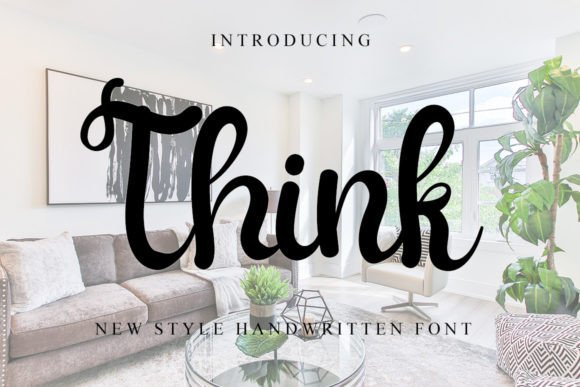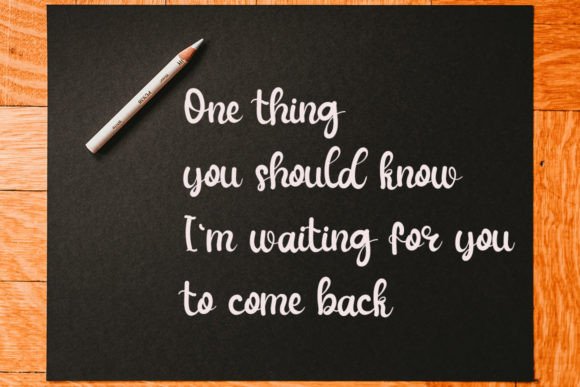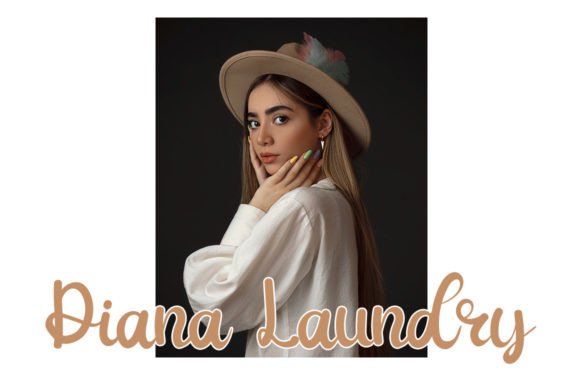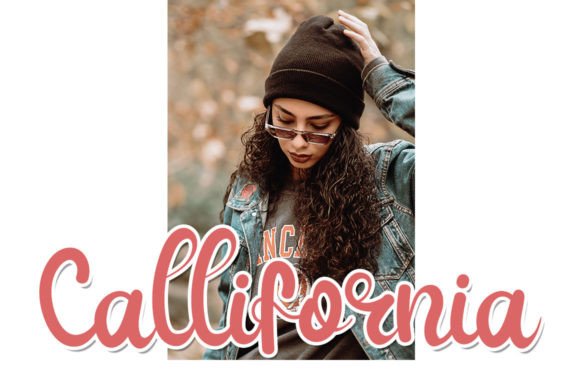
Think Font
About Think Font
Think is a beautiful and sweet handwritten font that brings a fresh and elegant touch to every project. With its clean curves and friendly appearance, it strikes the perfect balance between formal elegance and casual charm. Whether you’re working on a modern brand identity, a romantic invitation, or a minimalist design, Think will easily adapt to your needs.
Its carefully crafted characters have a soft and approachable tone, making it perfect for conveying warmth, sincerity, and creativity. The font flows smoothly, delivering both visual harmony and excellent readability.
Where to Use Think Font
One of the strongest features of Think is its incredible versatility. It fits seamlessly into both professional and personal projects. Here are some ideas where Think really shines:
• Wedding Invitations – Soft, elegant, and timeless
• Thank You Cards – Adds a warm, handwritten tone
• Branding & Logos – Perfect for brands with a clean, modern, or feminine personality
• Social Media Posts – Engaging and friendly style for quotes, promos, and captions
• Stationery & Notebooks – Makes every page feel personal and beautiful
• T-shirt and Merchandise Designs – Adds uniqueness and emotional appeal
• Packaging – From beauty products to handmade items, Think gives your packaging a professional, yet handmade feel
Whether you want to make a lasting impression or simply add a lovely human touch, this font delivers.
Think Font is more than just a pretty typeface—it’s also functional and easy to use:
• Uppercase and lowercase letters
• Numbers and punctuation
• PUA encoded – access all swashes and special glyphs easily
• Multilingual support
• Well-kerned and beautifully spaced for clean layout results
With these features, you’ll have everything you need to create stunning designs quickly and effectively.
Why Choose Think?
What sets Think apart is its ability to work across styles. It’s not overly decorative, yet it carries just enough personality to make a statement. Its clean and elegant flow gives it the flexibility to be used in minimalist designs, while its handwritten softness makes it suitable for romantic or emotional contexts.
Think communicates thoughtfulness, clarity, and design sophistication. Whether you’re a seasoned designer or just getting started, this font offers a user-friendly experience with professional results.